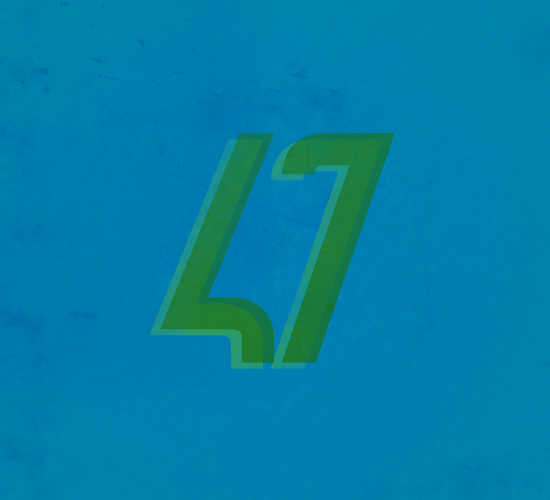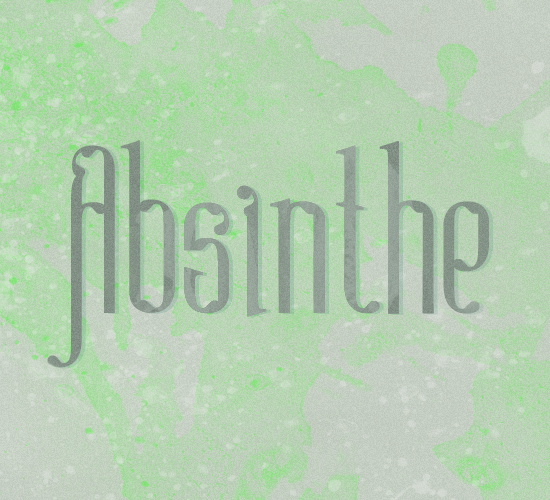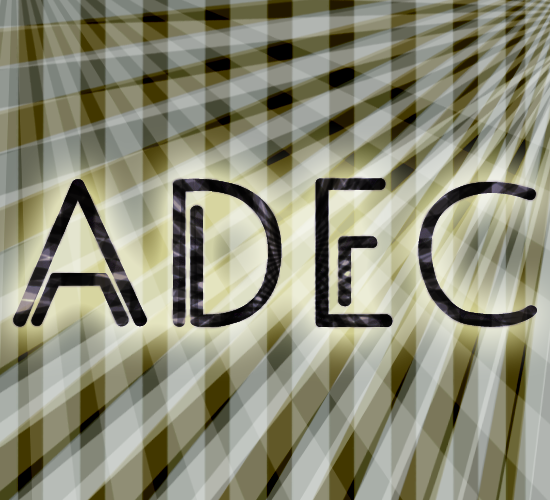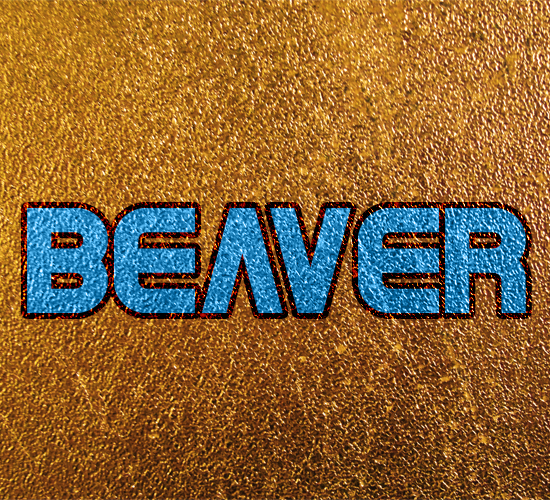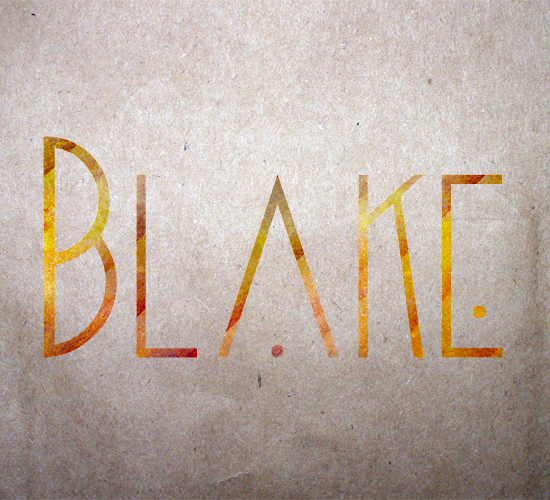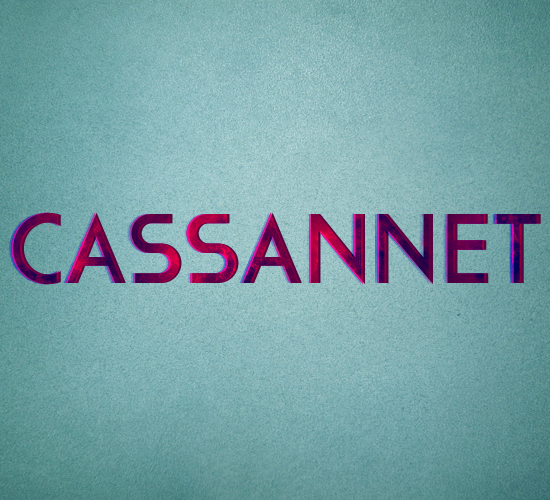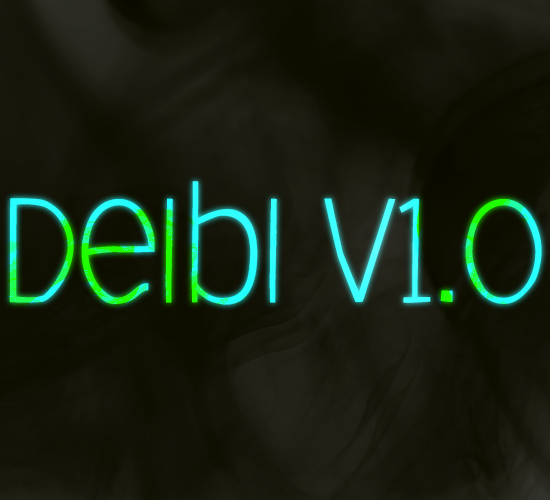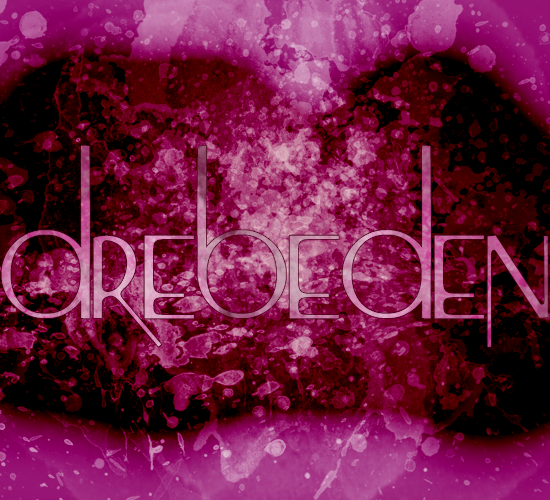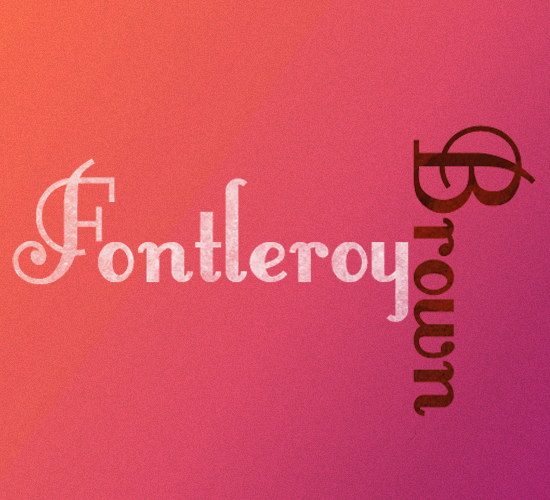
35 Free Retro Fonts
A lot of research went into finding the best art deco, kitschy, and film noir inspired fonts the web has to offer for this list of free retro fonts. Only the most unique fonts were chosen. Font-lovers, please enjoy this collection of vintage typeface!
47
Absinthe
Adec
Beaver
Blake
Cassannet
Deibi v1.0
Drebeden
FontleroyBrown
FortySecondStreet
Garoa
Glass Antiqua
GOTA
Gota
Heavy Tripp
Henry
Isabel
Magna
Metropolis 1920
Mexcellent
Nagasaki
Nickerbocker
Nougatine
Odalisque
Pepinot
RPM 45
Rina
RocketScript
Rocket Script
SeasideResort
Seaside Resort
Serifiqo IVF
Stroke
Tall Deco
UpperEastSide
Uralita
Vagabond
Weston